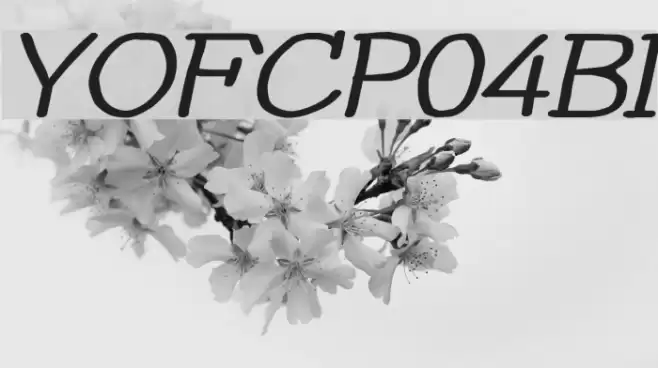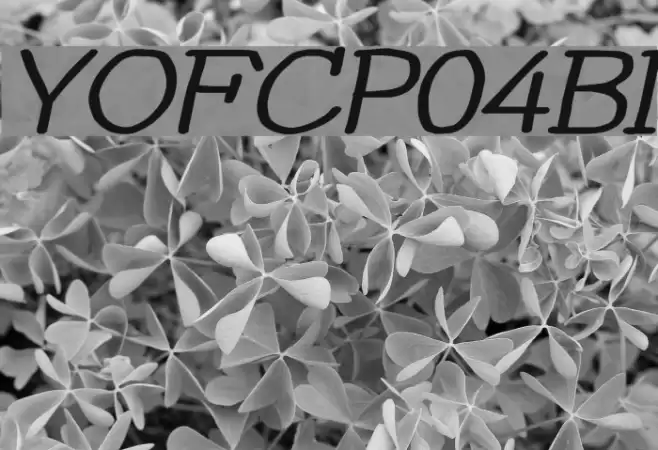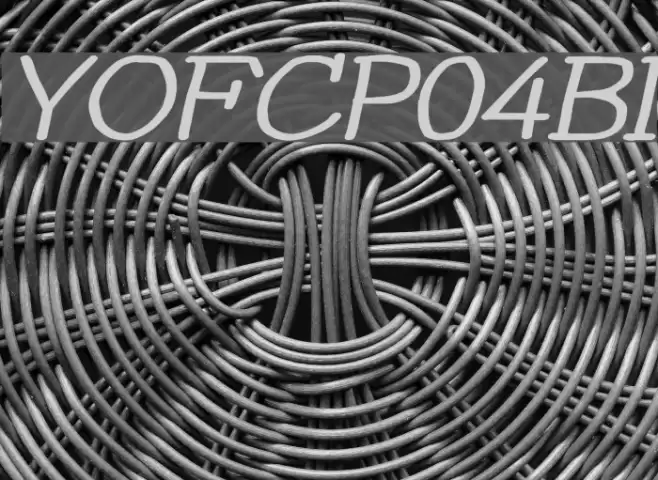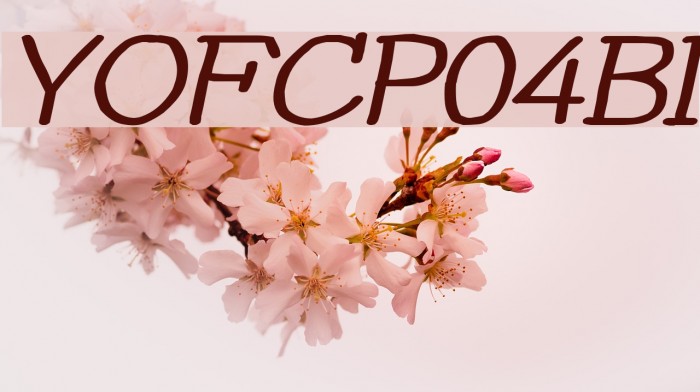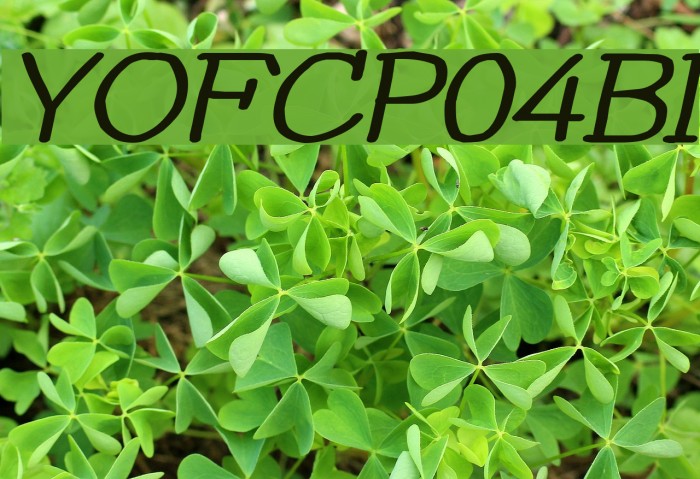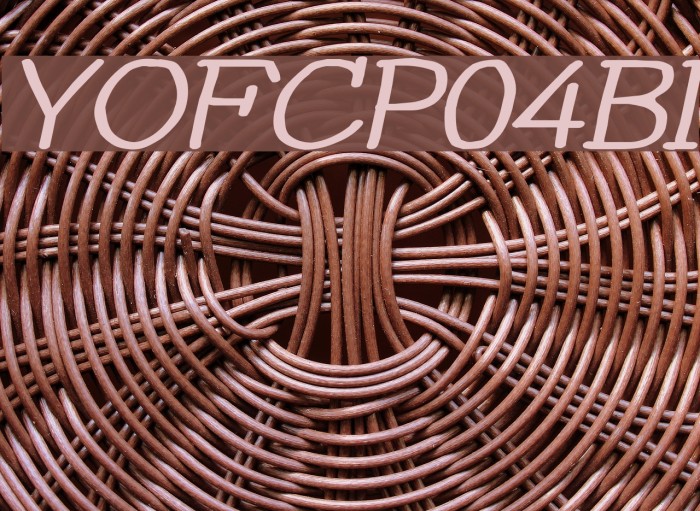
YOzFontCP04 Bold Italic Font
YOzFontCP04 Bold Italic Description
This font features a dynamic and energetic style with a bold and italicized form. The characters exhibit a slight slant, adding a sense of motion and fluidity. The strokes are consistent in weight, providing a uniform appearance across all characters. The uppercase letters are well-proportioned, while the lowercase letters maintain a harmonious balance. The numerals are clear and distinct, ensuring readability. Special characters are included, enhancing the font's versatility. This font is suitable for projects that require a bold statement with a touch of elegance.
A bold, italicized font with a dynamic and fluid style from Uncategorized fonts.
- Proposed Projects: Ideal for branding, advertising, headlines, and posters where a bold and elegant statement is needed.